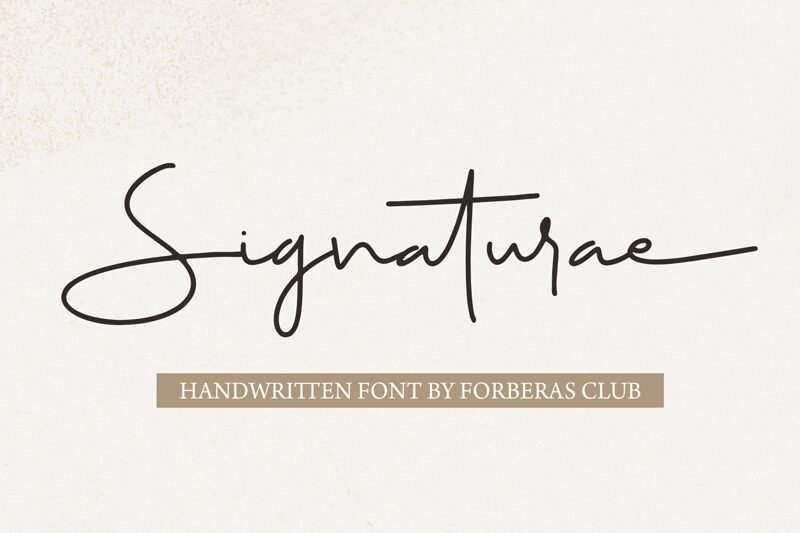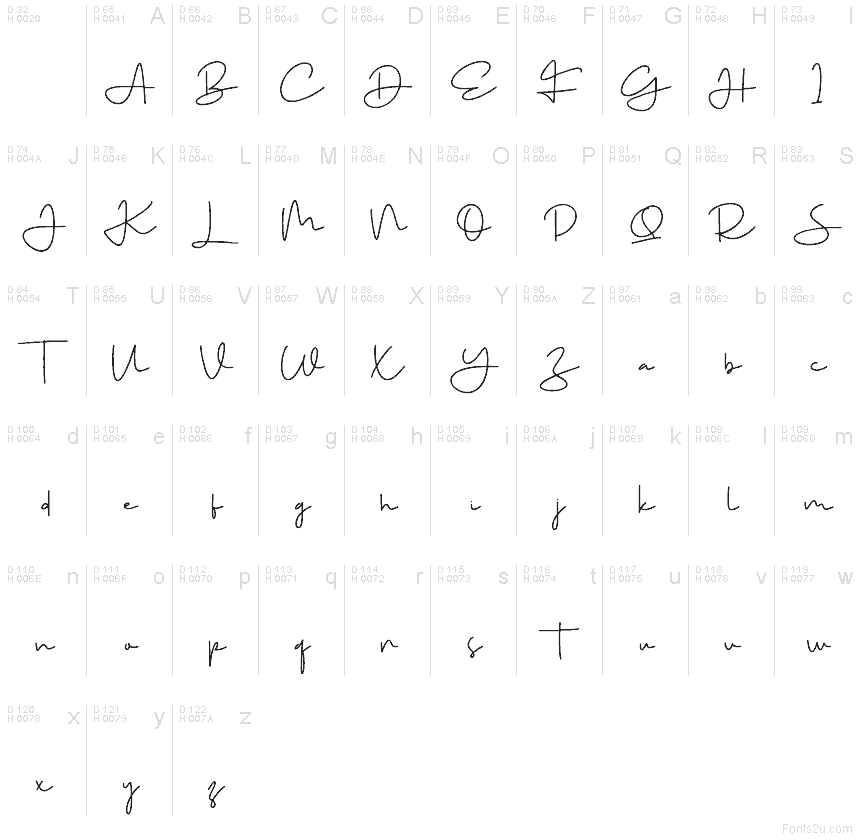
Signaturae
Signaturae font by Forberas Club is a free handwritten signature font that captures the feel of inky, fast, confident pen strokes. Its long, sweeping lines and airy spacing create a graceful rhythm, like a name scrawled across smooth paper in one fluid motion. The slightly irregular pressure and slender forms keep it from feeling stiff, giving your designs a personal, tailored touch rather than a generic cursive look.
Using Signaturae, you can bring a luxe, bespoke mood to logos, brand marks, social media posts, packaging, invitations, and watermark signatures. This free font shines on minimalist layouts where a single, elegant word needs to carry the story. Try pairing Signaturae with a clean sans serif for body text and keep it at larger sizes, so those delicate strokes and extended curves stay crisp and legible.